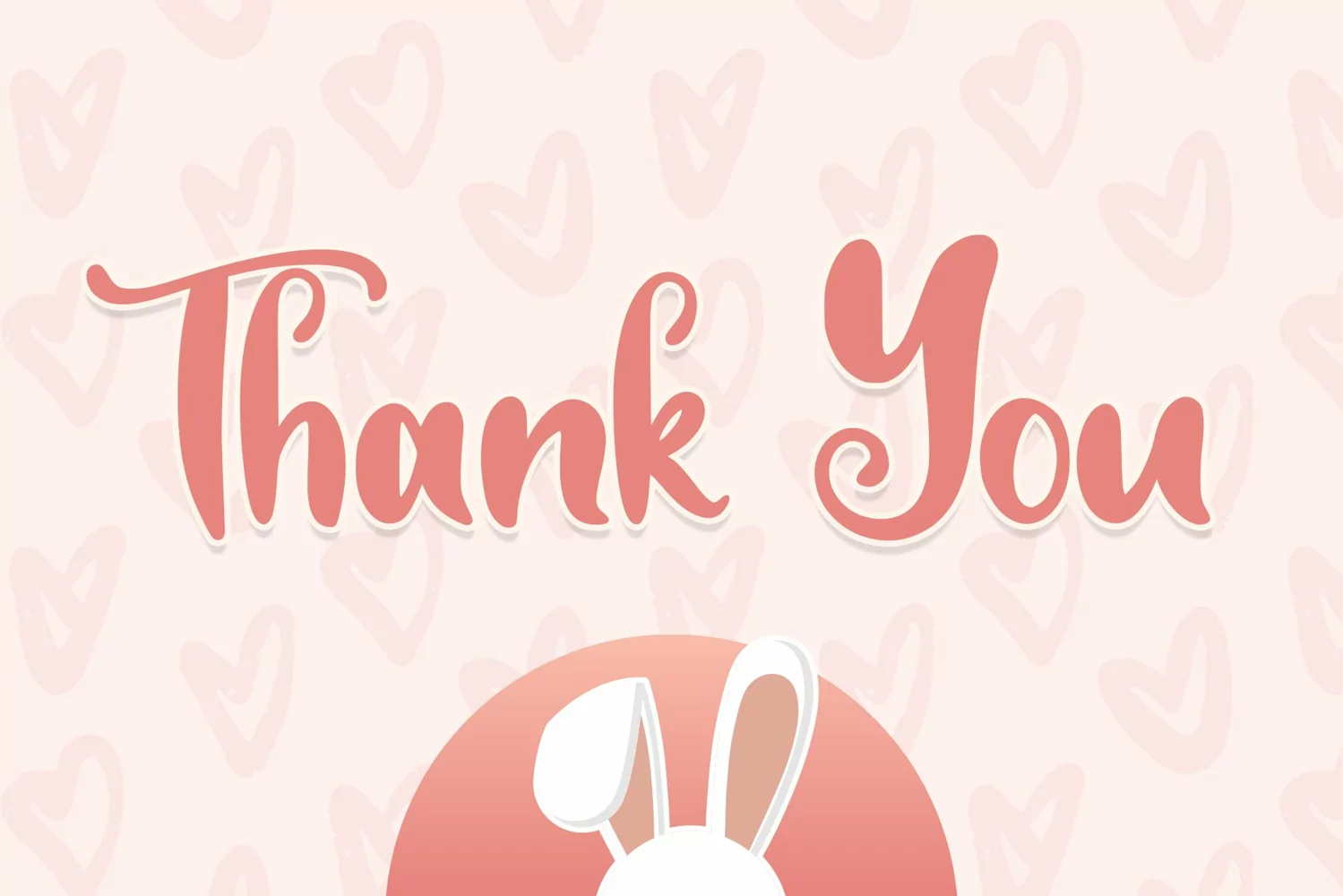
Love Rabbit is a stylish and free-flowing script font. You can use it for various projects, such as blog posts, logos, branding, ads, invitations, greeting cards, planners, photo albums, decorations, and much more.